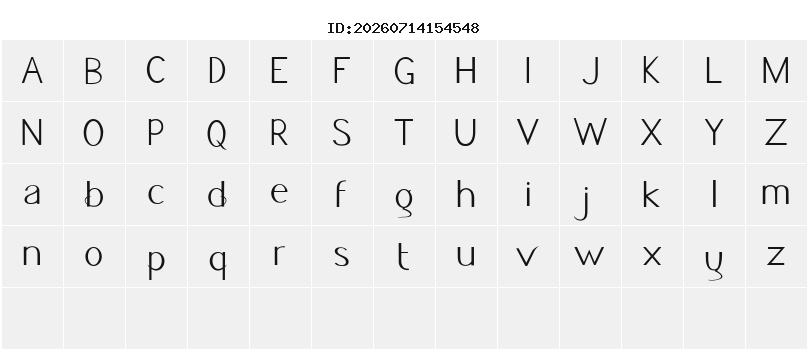
Jacks Font Preview
• Font Name: Jacks Font
• Full Font Name: JacksFont
• PostScript Name: JacksFont
• Manufacturer: Jack Edwards
About Jacks Font.ttf
Jacks Font.ttf is a modern, elegant sans-serif font designed for ultimate readability and visual harmony. Perfect for branding, headlines, web design, and print materials.